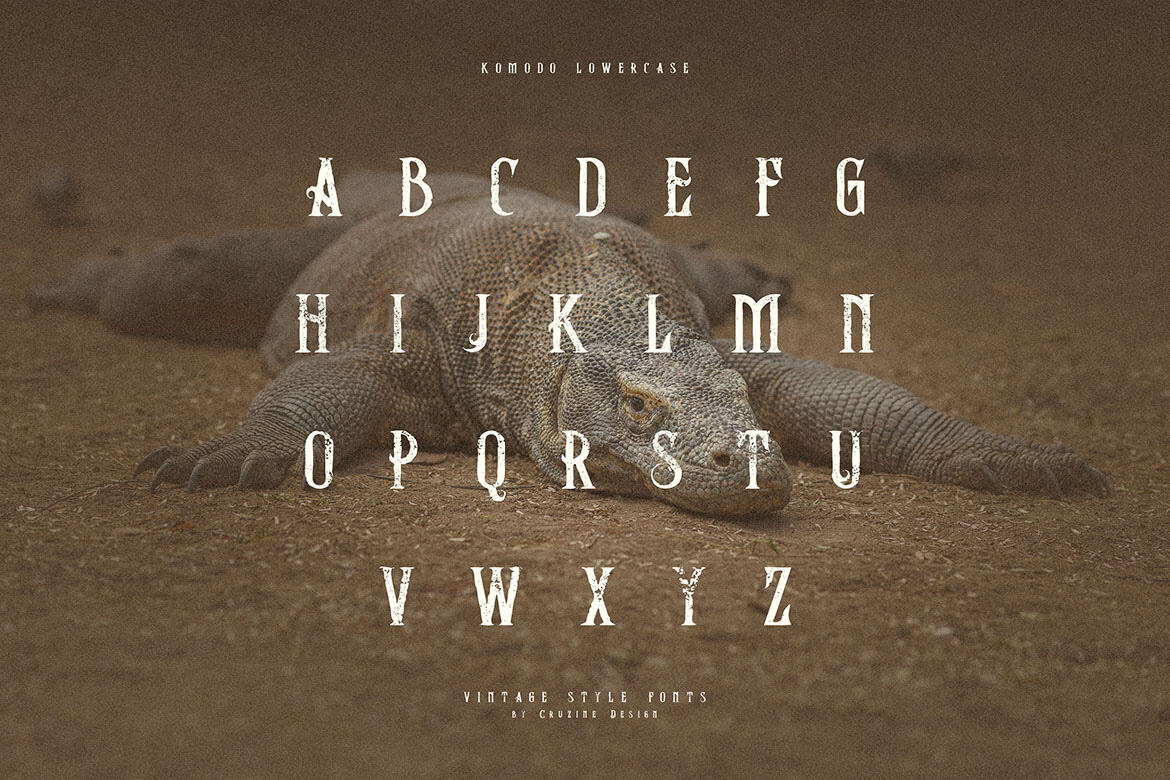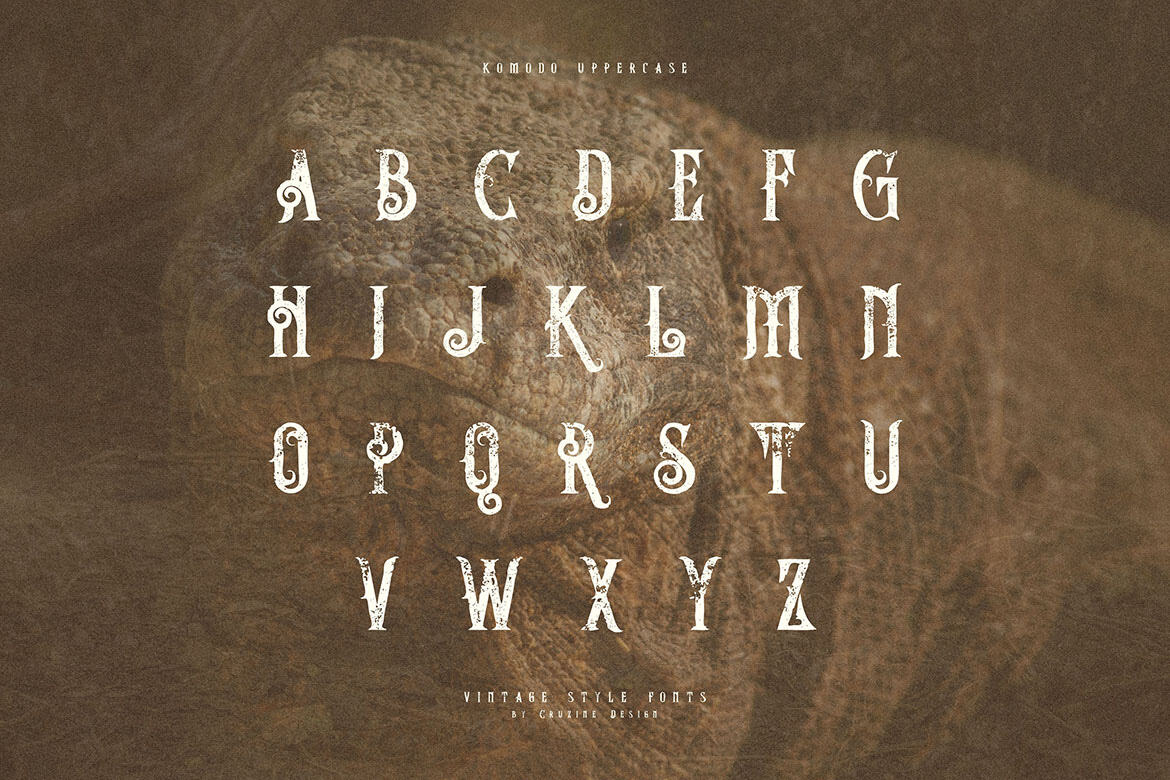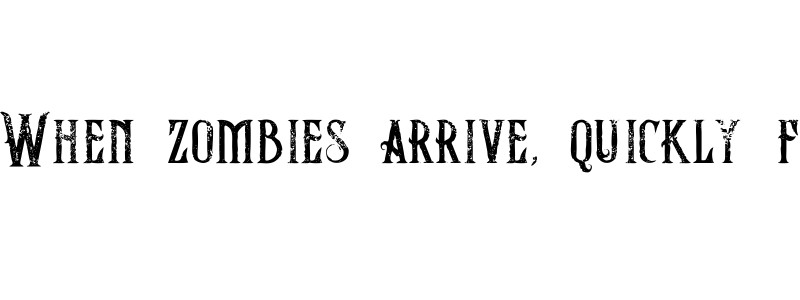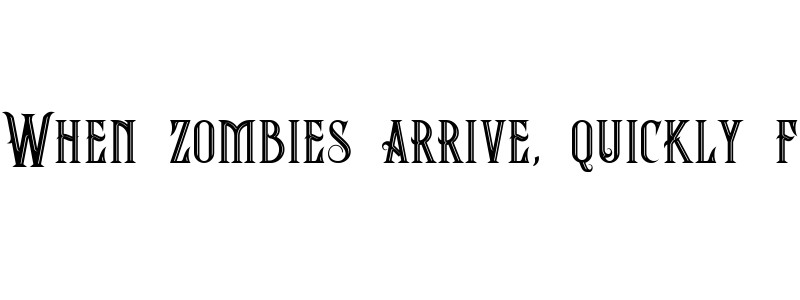
Komodo - FREE Font Family
komodo grunge
komodo inline grunge
komodo inline
Unique bold, vintage & decorative serif font. Comes with multilingual support & ligatures - great for your new logo or branding project. These 3 fonts are extra & FREE bundle to premium regular font you can purchase and support us ;) Thanks a lot.
• great for retro or vintage style branding projects
• multilingual support & ligatures